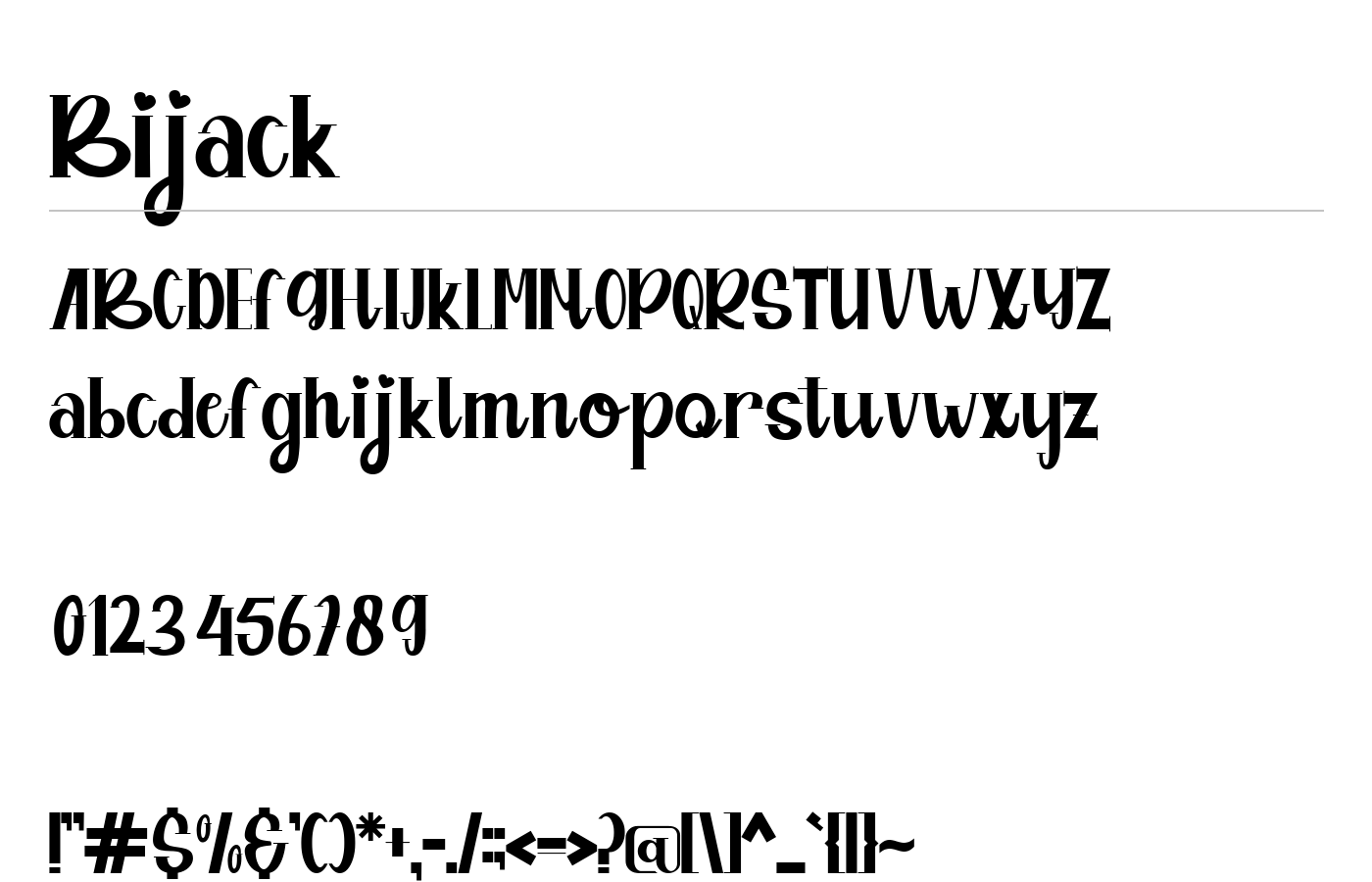
Bijack is a playful serif font with a mix of quirky and elegant touches, featuring high contrast between thick and thin strokes and charming details like heart-shaped dots on the i and j. Its narrow width and tall x-height give it a unique vertical emphasis, making it stand out with a lively personality that works well for creative branding, fun headlines, and decorative projects. This font’s distinctive style adds character and flair, ideal for adding a touch of whimsy and sophistication.
Bijack Font
About Bijack Font